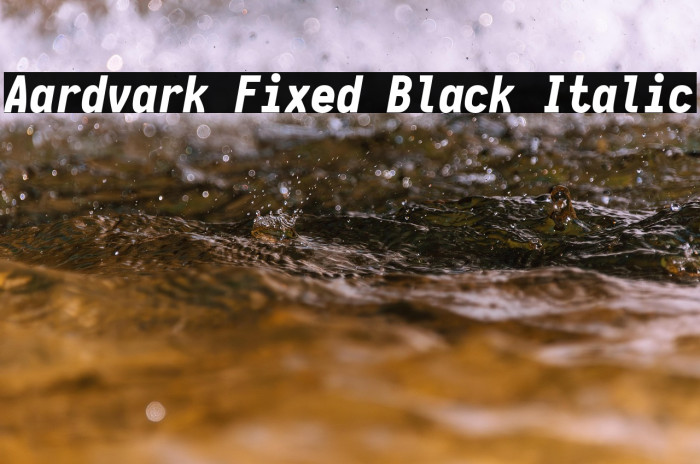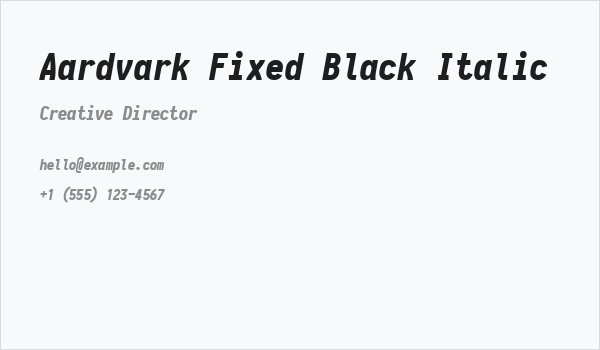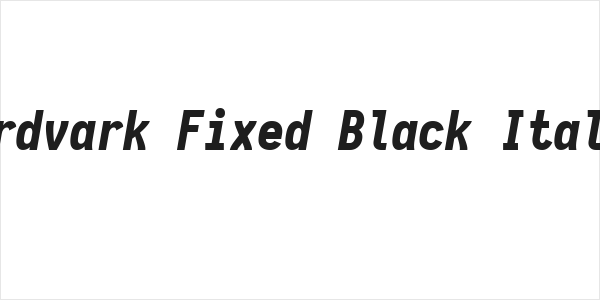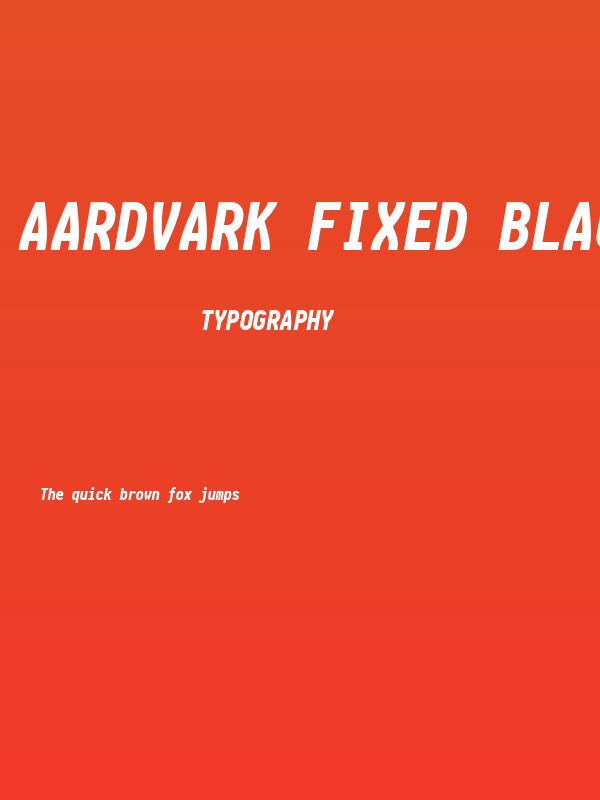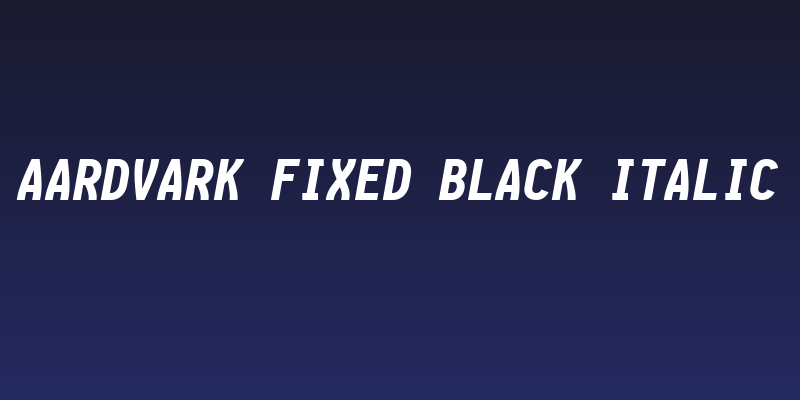
Aardvark Fixed Black Italic Font
Aardvark Fixed Black Italic Description
This font features a bold and italicized style with a strong and assertive presence. The characters are slightly slanted to the right, giving a dynamic and forward-moving appearance. The strokes are thick and consistent, providing a sense of stability and confidence. The uppercase and lowercase letters maintain a uniform width, contributing to a cohesive and structured look. The numerals are clear and bold, ensuring readability. Special characters are well-defined, matching the overall bold aesthetic. This font is suitable for making a strong visual impact.
| Proposed Projects | Ideal for branding, headlines, posters, and any design requiring a bold statement. |